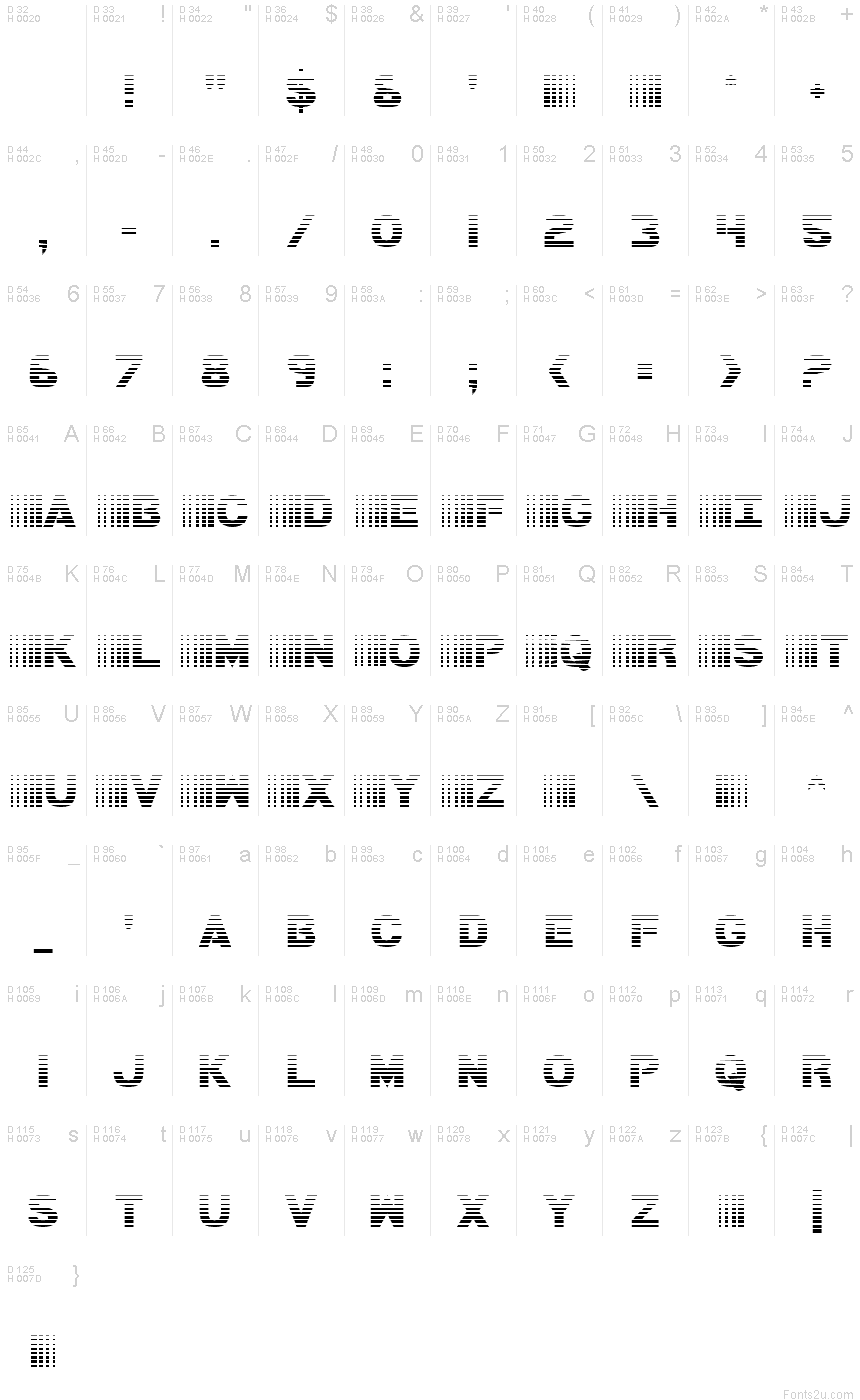
Bamf Gradient
Bamf Gradient font by Iconian Fonts is a free decorative display typeface that looks like it’s built from bands of light. Each letter is sliced into tight horizontal stripes, creating a bold, glitchy gradient effect that feels fast and high-tech, like a scanline racing across the screen. The chunky, squared forms stay readable even with all that motion, so your words hit hard without dissolving into noise.
Using Bamf Gradient, you can slam energy into esports logos, sci-fi posters, tech event titles, YouTube thumbnails, game UIs, and racing-themed flyers. This free font thrives at large sizes where the layered stripes can really vibrate. Pair it with a clean geometric sans for body copy and let Bamf Gradient handle the loud, neon-soaked headlines.